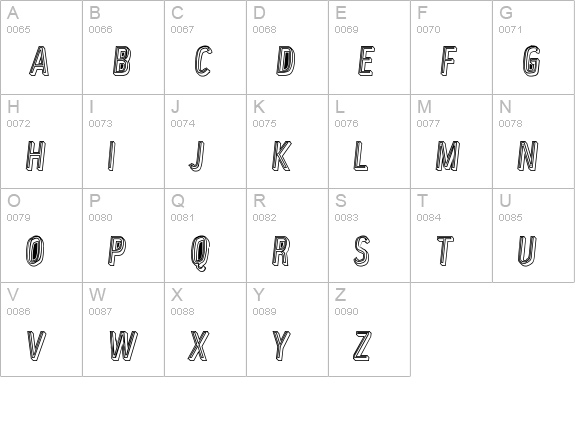
LowerMetal Font Details
LowerMetal is a bold and striking font that exudes power and strength. Its sharp edges and industrial aesthetic make it perfect for projects that require a touch of ruggedness and intensity. The letters are meticulously crafted with a combination of straight lines and angular curves, creating a unique and eye-catching look. This font is ideal for various design purposes, such as logos, headlines, posters, and album covers. It captures attention and demands to be noticed, making it a great choice for projects that need to make a bold statement. What makes LowerMetal even more appealing is that it is free. Yes, you read that right! This remarkable font is freely available to download at FontsMarket.com. You can unleash your creativity and use it in your projects without worrying about any extra costs. LowerMetal's versatility is another reason why it stands out among other fonts. It can be used in a variety of design styles, from edgy and modern to vintage and retro. Its boldness adds a touch of excitement and energy to any composition, making it a go-to choice for designers looking to make a lasting impression. Whether you're working on a brand identity, a product packaging, or a website design, LowerMetal will elevate your project to new heights. Its strong presence and distinctive character will captivate your audience and leave a lasting impression. So why wait? Download LowerMetal for free today at FontsMarket.com and let your creativity shine with this powerful and attention-grabbing font.